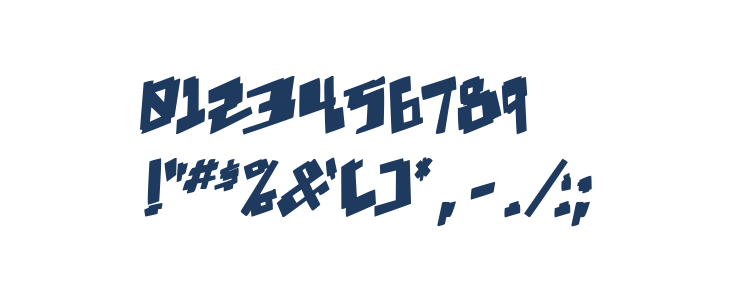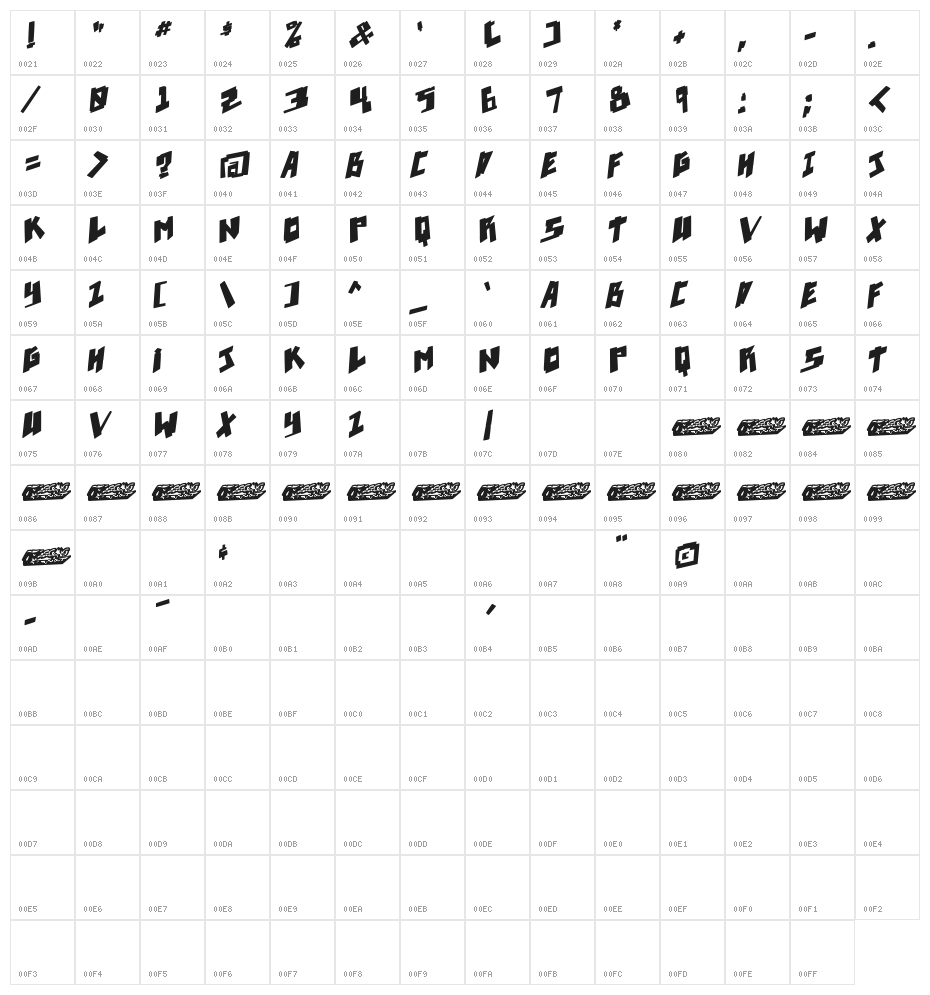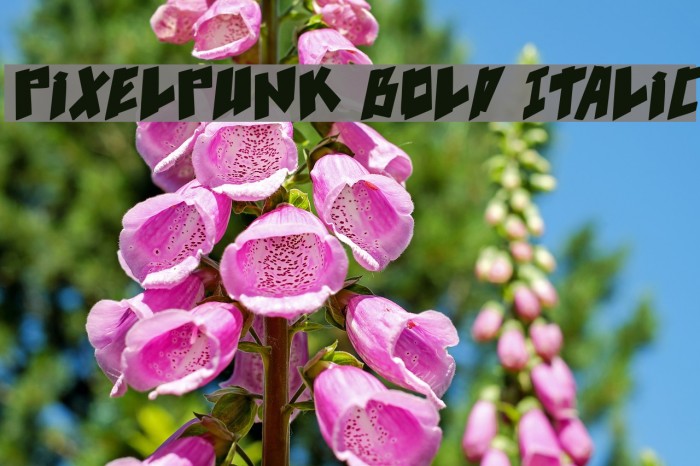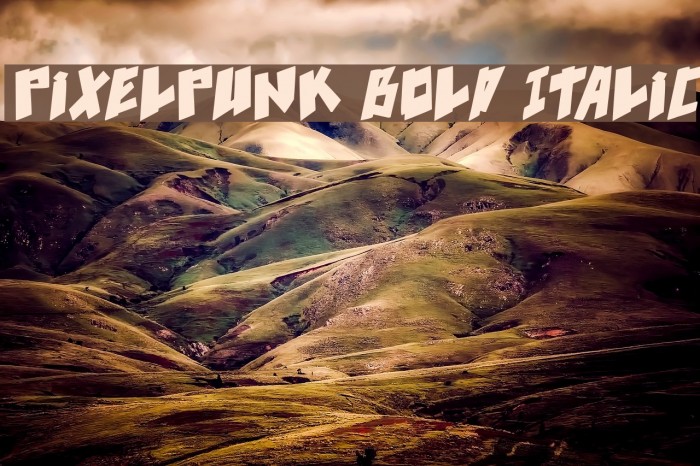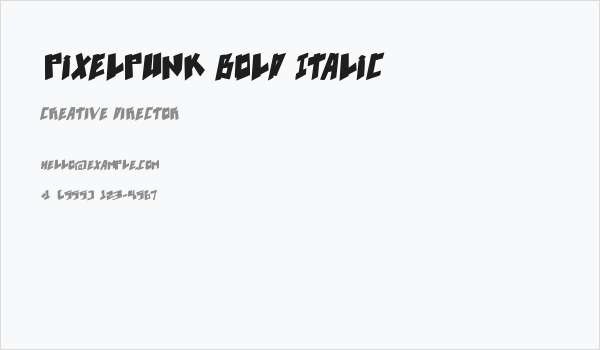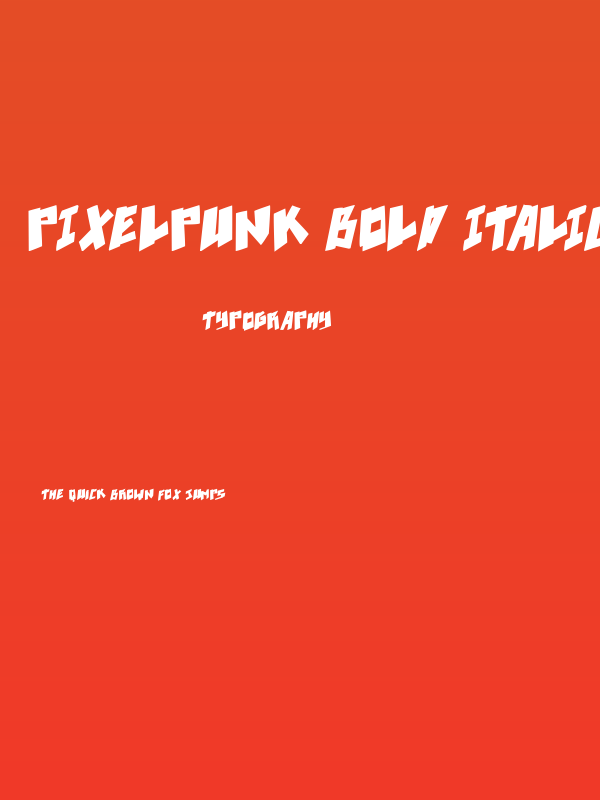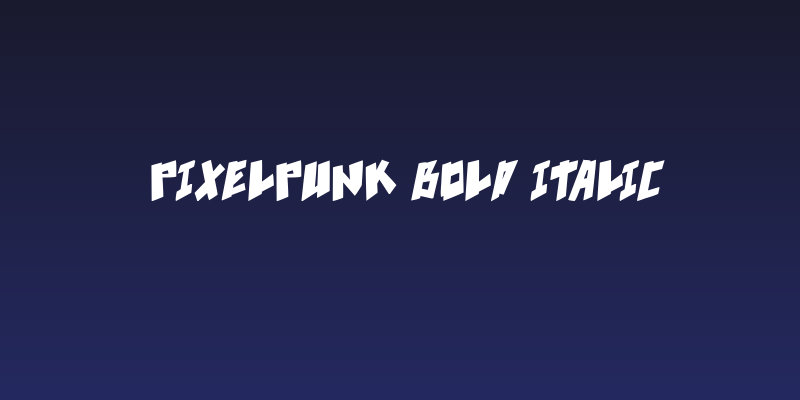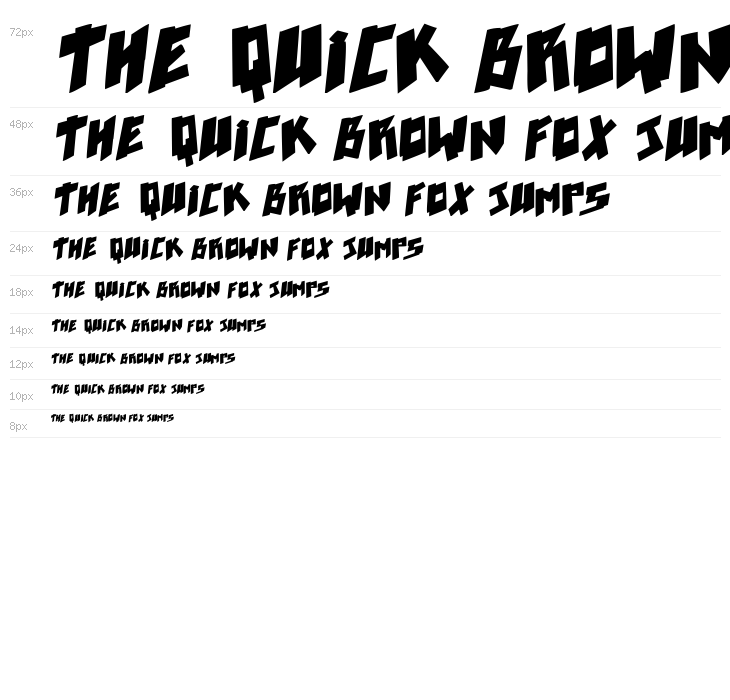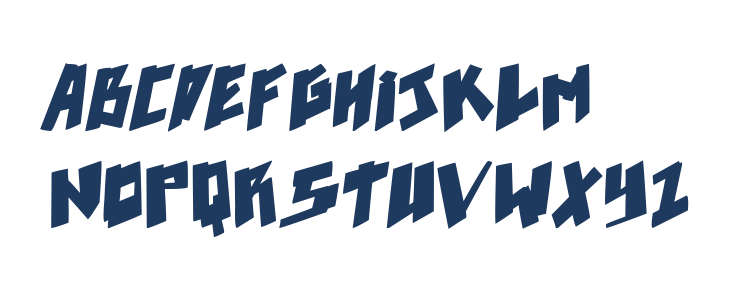
pixelpunk Bold Italic Font
pixelpunk Bold Italic Description
This font features a bold and italicized style with a distinctly edgy and angular design. The characters are crafted with sharp, geometric lines that give a futuristic and digital feel. The uppercase and lowercase letters maintain a consistent style, with each character exhibiting a unique, jagged form that adds to the overall dynamic appearance. The numbers and special characters follow the same design principles, ensuring uniformity across all glyphs. This font's boldness and slanted orientation make it particularly eye-catching and suitable for projects that require a modern, tech-inspired aesthetic.